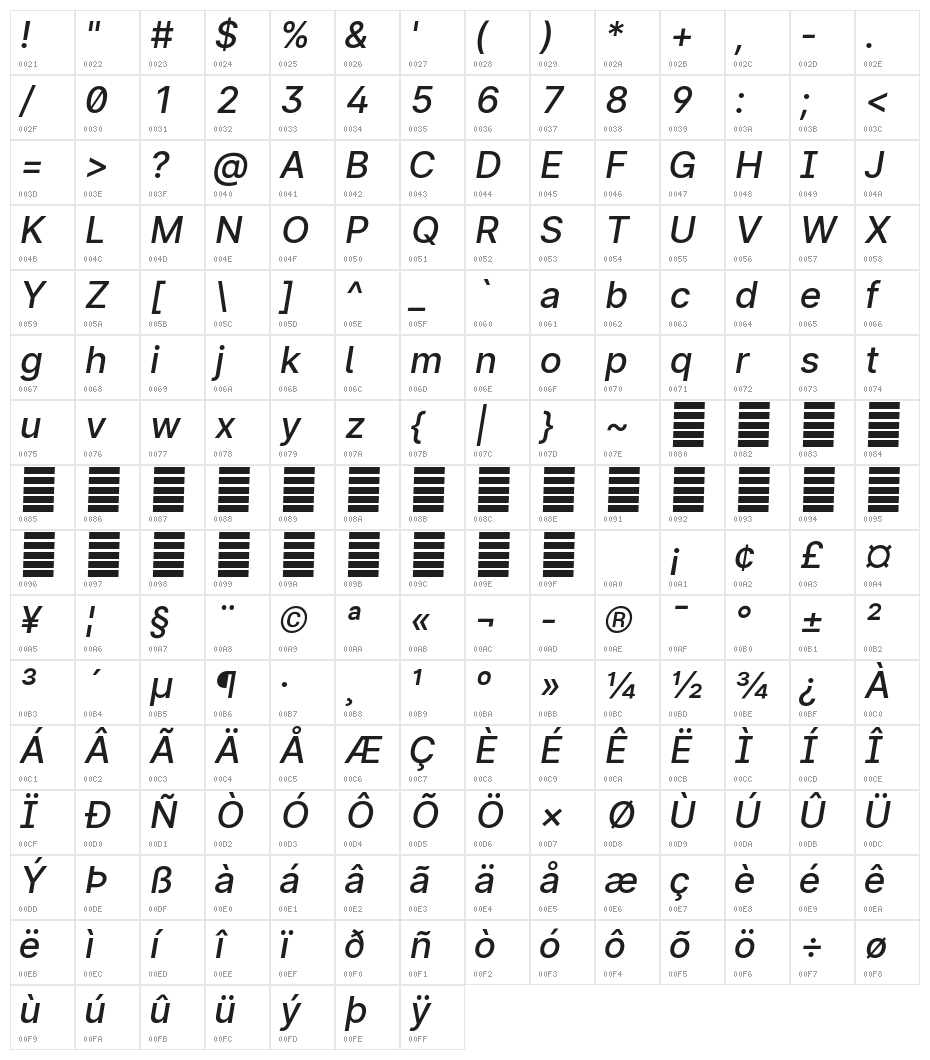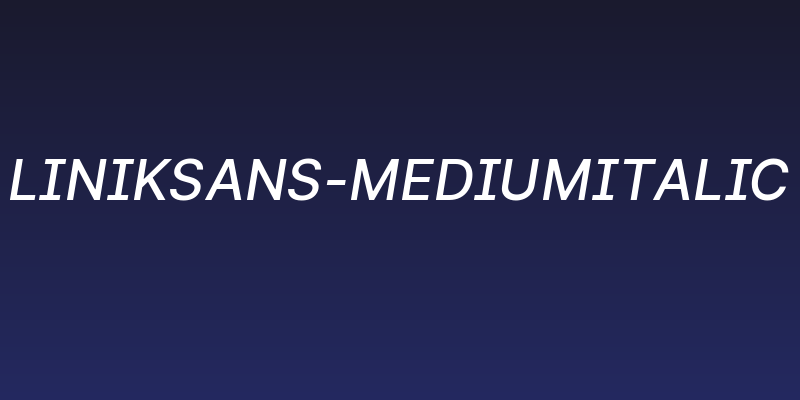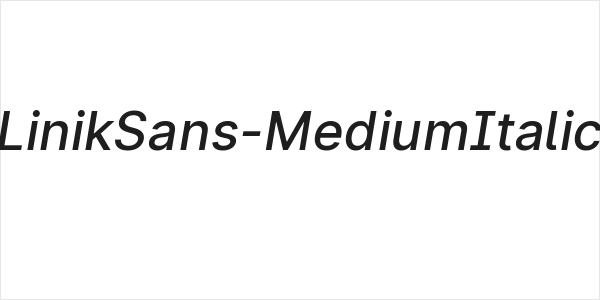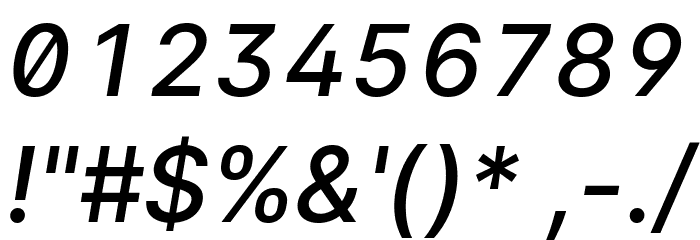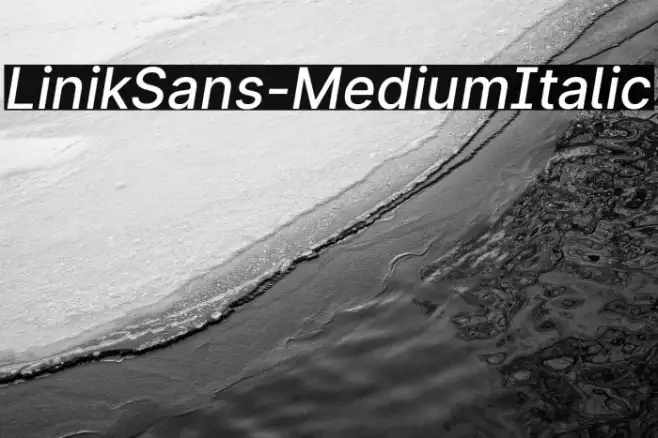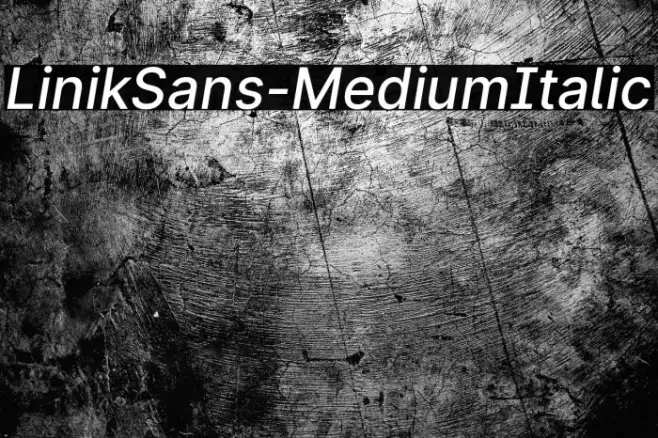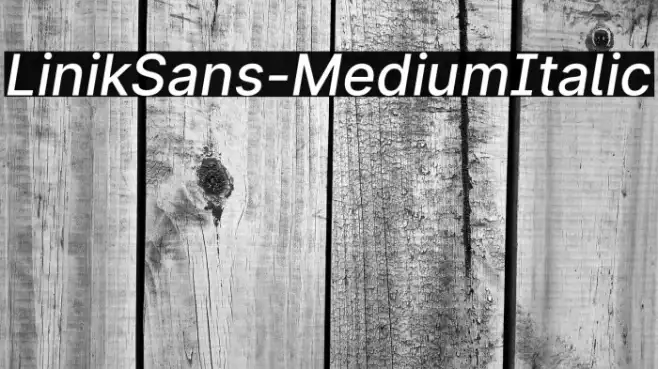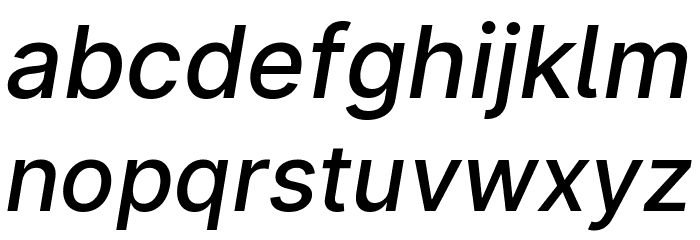
LinikSans-MediumItalic Font
LinikSans-MediumItalic Description
This font features a clean and modern sans-serif style with a slight italic slant, giving it a dynamic and forward-moving appearance. The characters are well-proportioned with a consistent stroke width, providing a harmonious and balanced look. The uppercase letters are bold and assertive, while the lowercase letters maintain a friendly and approachable feel. The numerals are clear and easy to read, making them suitable for various applications. Special characters are distinct and well-integrated into the overall design, ensuring versatility in usage.
| Use Case | Headlines, Body text, Logos |
| Proposed Projects | Ideal for branding, advertising, digital interfaces, and editorial design where a modern and approachable look is desired. |